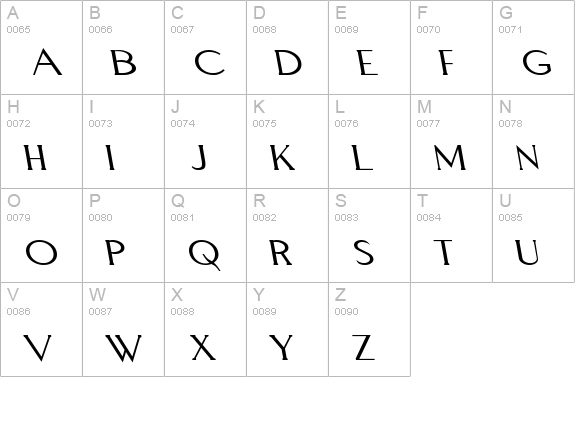
Aquaduct Reverse Italic is a distinctive, italic variant in the Aquaduct typeface family \xE2\x80\x94 well suited to design and typography projects.
Aquaduct Reverse Italic font is a sleek and modern typeface that exudes sophistication and elegance. Its unique reverse italic style adds a touch of flair to any design project, making it perfect for logos, branding, and editorial design. The fluid lines and graceful curves of this font give it a sense of movement and dynamism, making it stand out from the crowd. What's even better is that Aquaduct Reverse Italic font is available for free download at FontsMarket.com. This means you can easily access this stunning font and use it in your projects without any cost. Whether you're a designer, a business owner, or a student, this font is a versatile and stylish choice that will elevate your creations to the next level. Don't miss out on the opportunity to enhance your designs with the timeless beauty of Aquaduct Reverse Italic font.